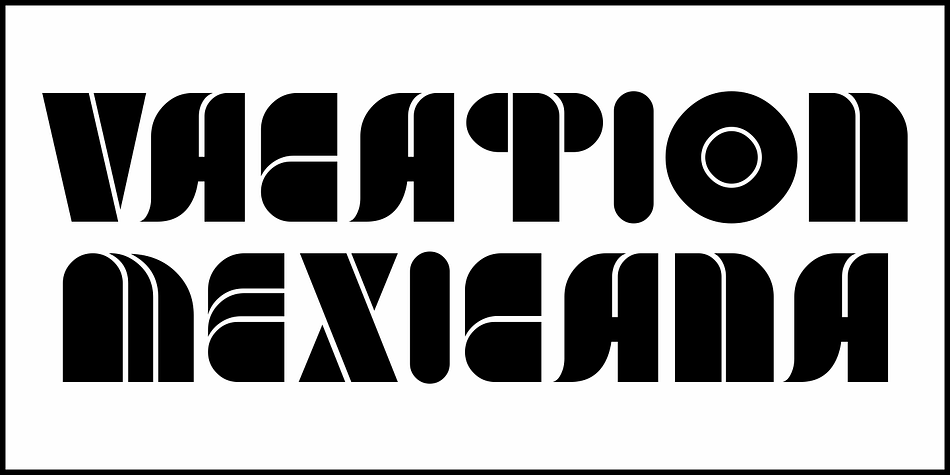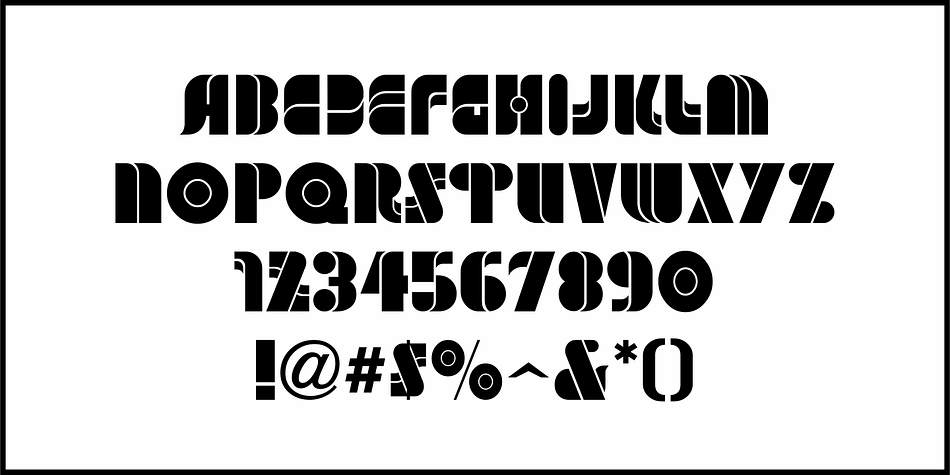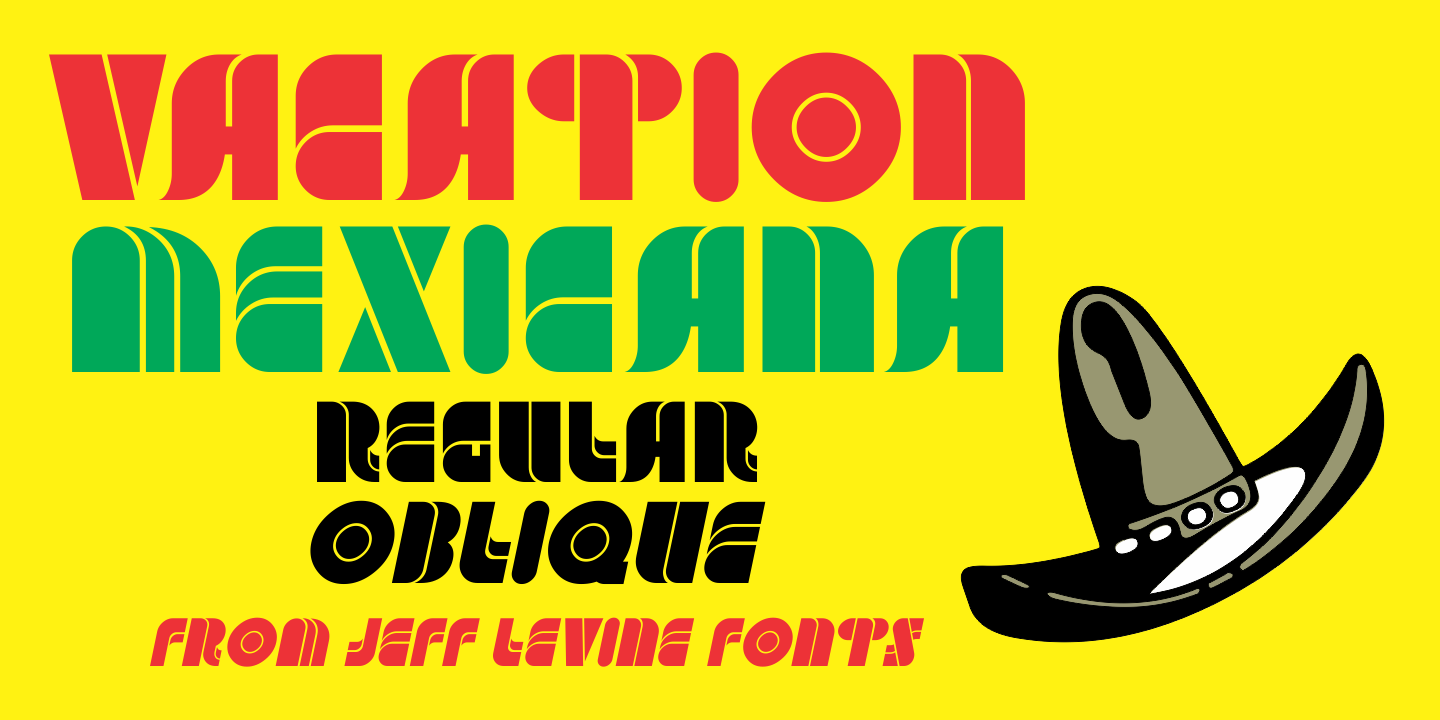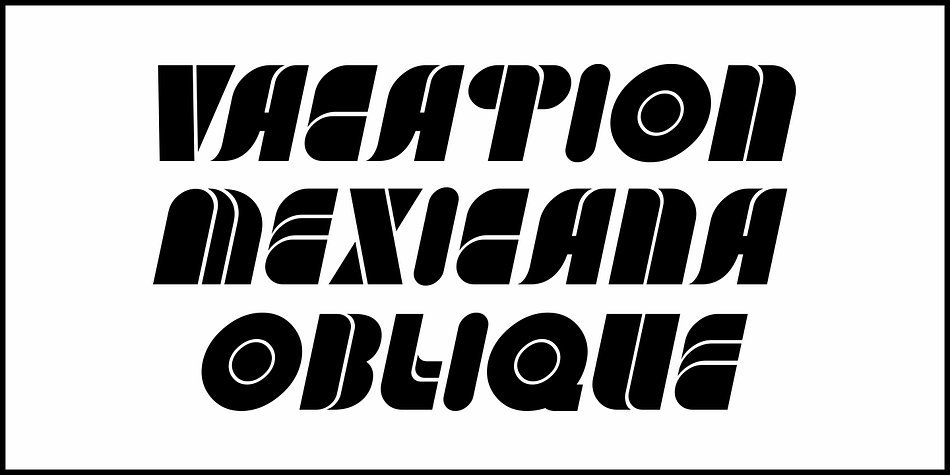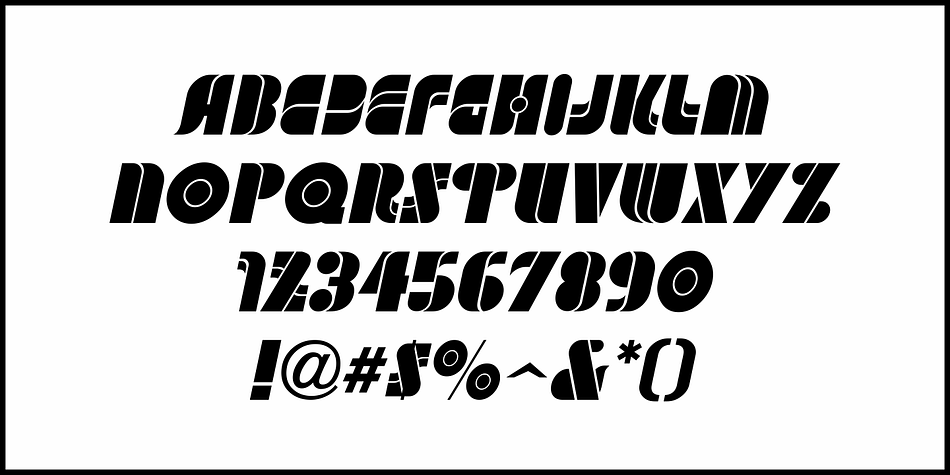
Designed by Jeff Levine, Vacation Mexicana JNL is a display, retro and stencil font family. This typeface has two styles and was published by Jeff Levine Fonts.
An image for a travel poster for the resort of Tulum, Mexico with its 1970s-era highly stylized semi-stencil type design inspired Vacation Mexicana JNL; available in both regular and oblique versions.